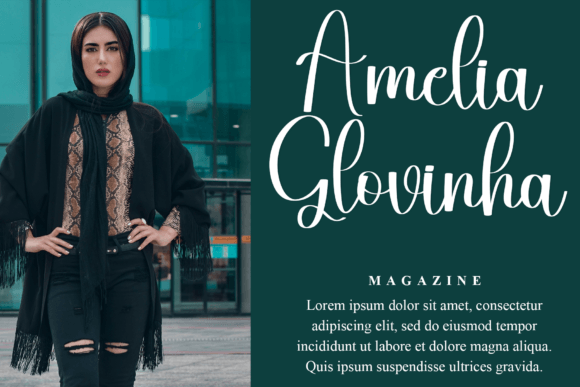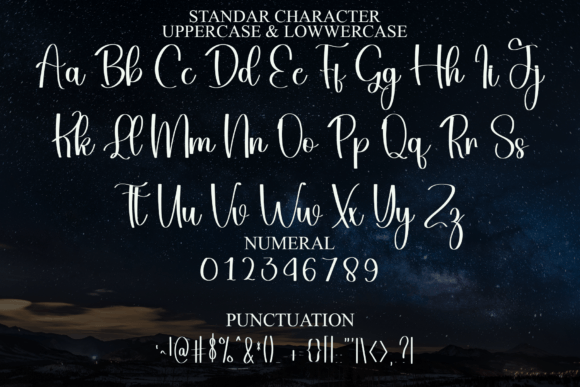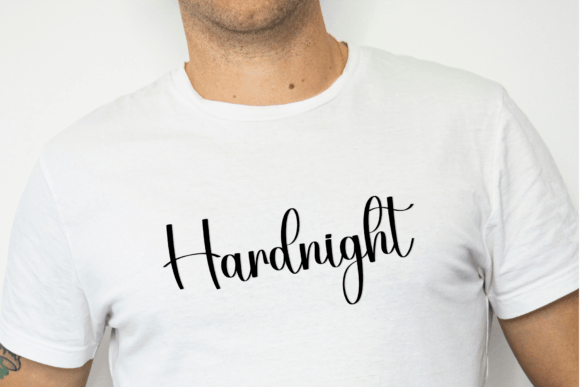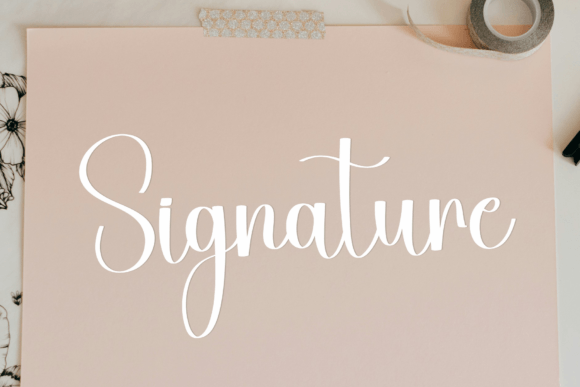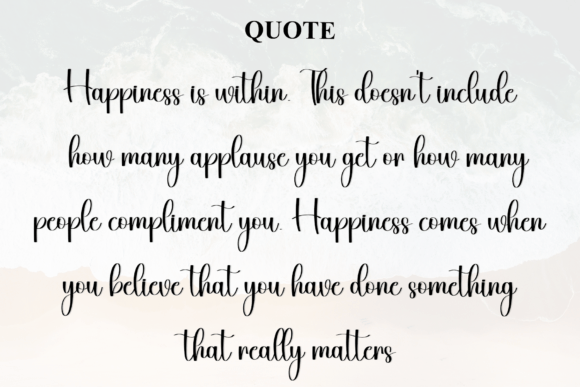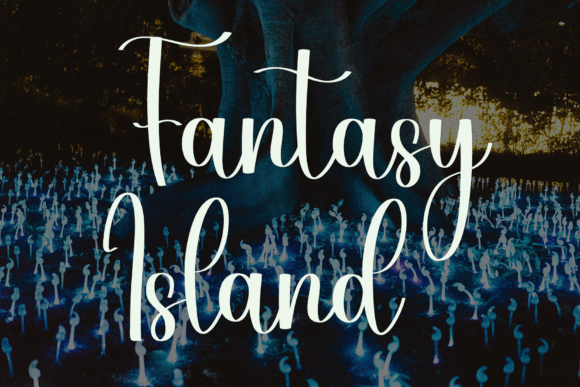
Introduction to Grand Fantasy Font
Have you ever stared at a blank canvas, searching for the perfect font to bring your creative project to life? I know I have. The excitement of designing something new is always followed by the daunting task of finding the right font to match our vision. That’s where the Grand Fantasy Font comes in – a lovely script font that’s sure to add a touch of elegance and charm to any design.
As a valuable resource for designers, the Grand Fantasy Font offers high quality, smooth, and flowing letters that are perfect for invitations, logos, or any design that needs a bit of beauty and charm. With its transparent background, it’s easy to incorporate into your design without any distractions. Plus, it’s available for free download, making it an excellent addition to any design project.
Key Features of Grand Fantasy Font
- Unique fantasy-inspired characters and symbols for adding a touch of magic to your creative project
Honest Review: Grand Fantasy Font
As a designer, I’m always on the lookout for high-quality design resources to elevate my creative projects. The Grand Fantasy Font has caught my attention, and I’m excited to share my honest review.
- Impressive range of fantasy-inspired glyphs, perfect for creating magical and whimsical designs.
- Limited customization options, which might be a drawback for designers seeking more flexibility.
Overall, the Grand Fantasy Font is a solid addition to any designer’s toolkit. While it has its limitations, its high quality and impressive range of glyphs make it an excellent choice for creative projects. If you’re looking for a free and reliable font for your next design adventure, the Grand Fantasy Font is definitely worth considering.
The Grand Fantasy Font is commonly used for:
- Book covers and novel illustrations
- Game and app design
- Marketing materials and advertisements